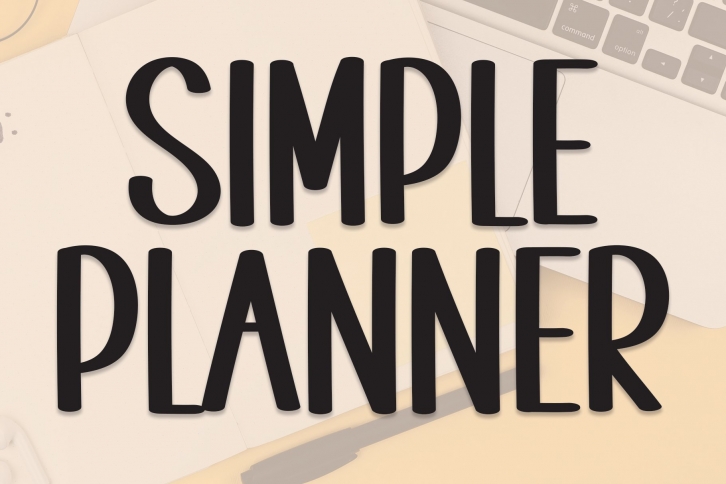
SIMPLE PLANNER is a gorgeous font that was realeased on October 5, 2022. The font can be used in many style contexts and design environments. Perfect for invitations, magazines, websites, logos, and more! It was designed by Scratchones and the file size is 8.9 MB. Thanks for checking out this font!